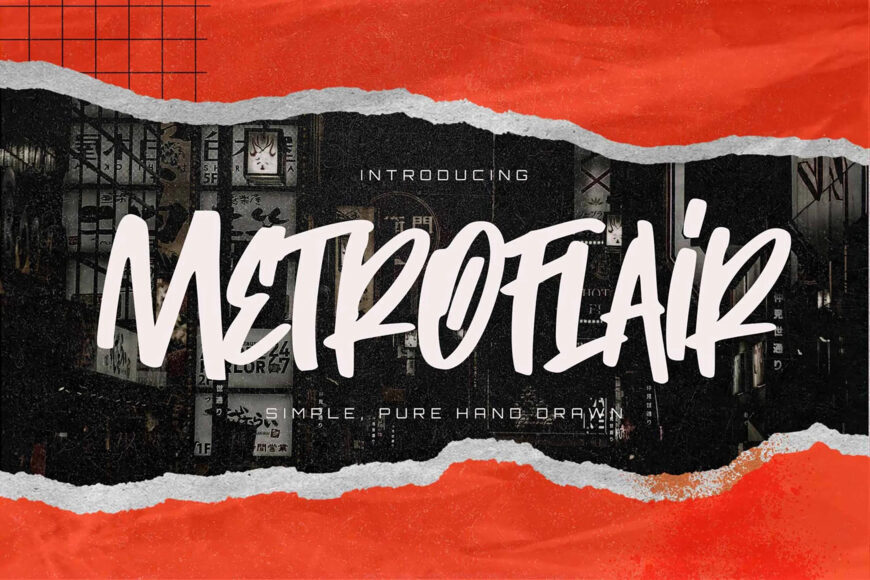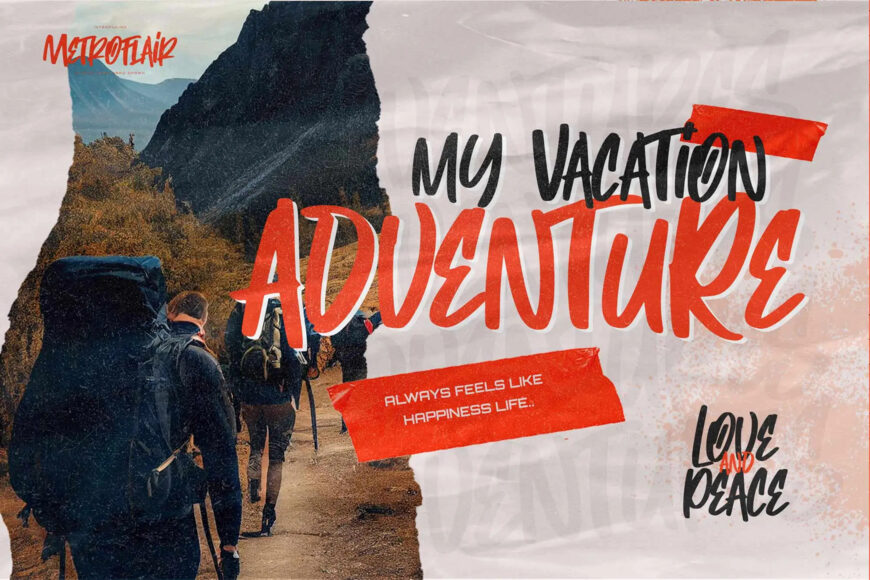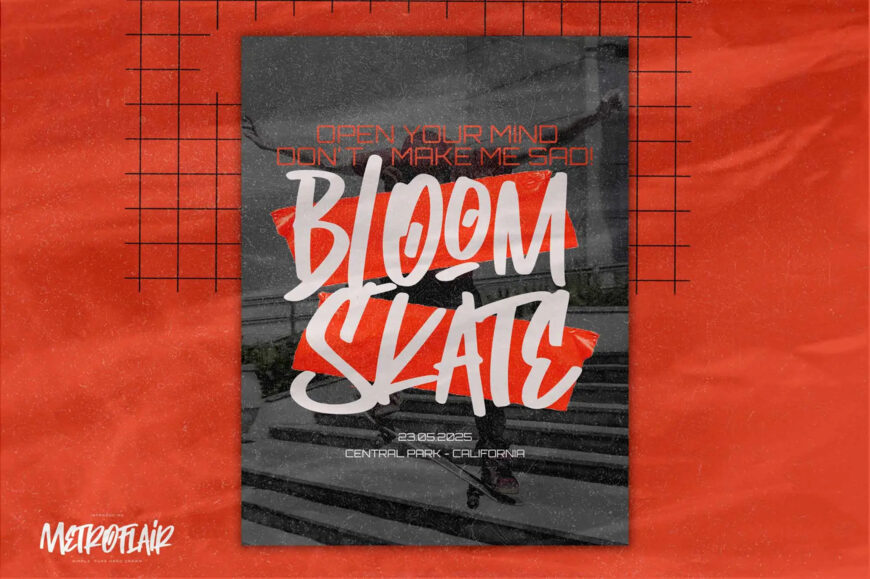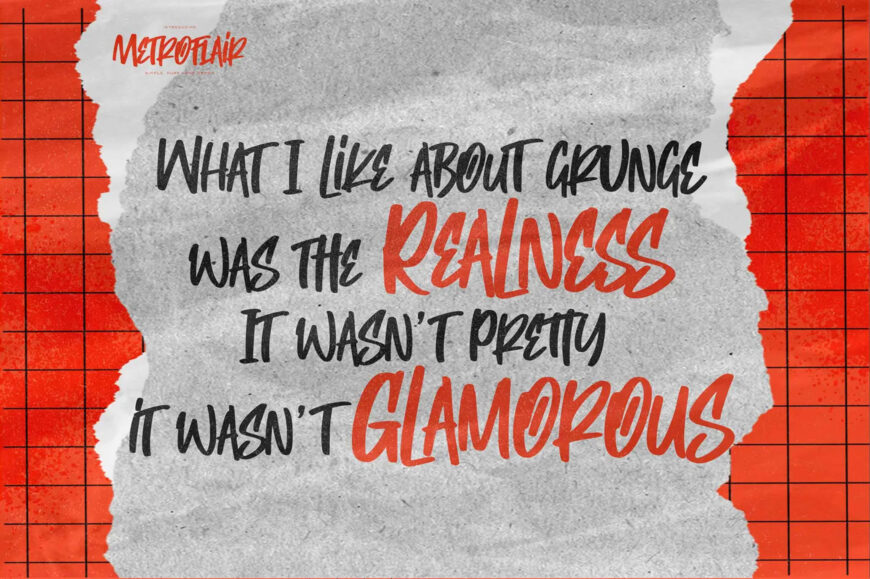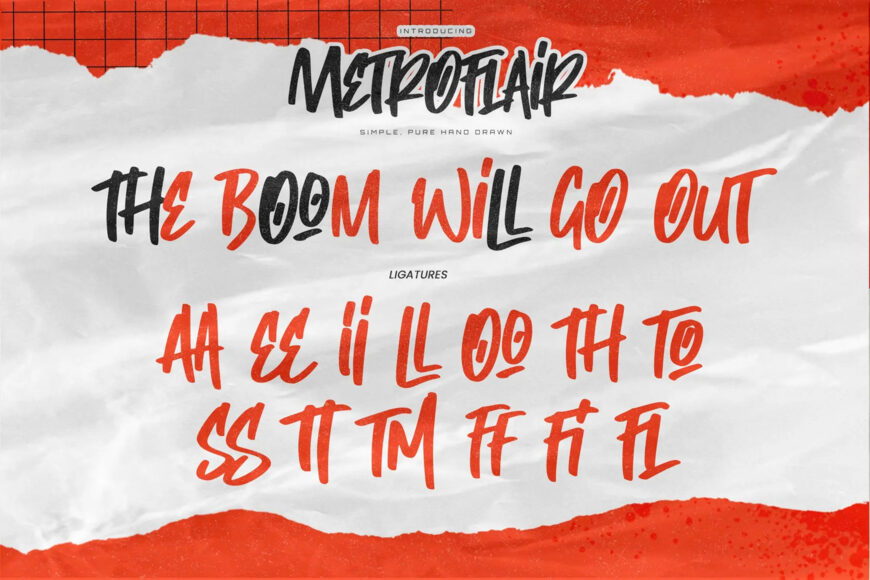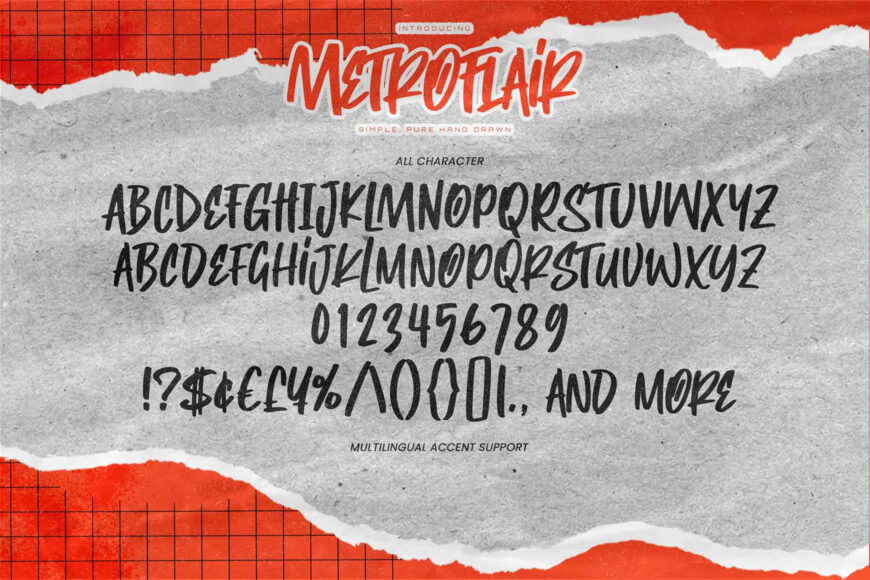
Metroflair by Gassstype Studio is a bold, modern, hand-drawn display typeface. Infused with urban energy and street culture aesthetics, it features an authentic handmade texture and numerous alternate characters.
Designed to make a powerful visual statement, Metroflair provides multilingual support and PUA-encoded accessibility, making it perfect for creative branding, merchandise, social media graphics, posters, and minimalist urban design projects looking for a raw, expressive touch.